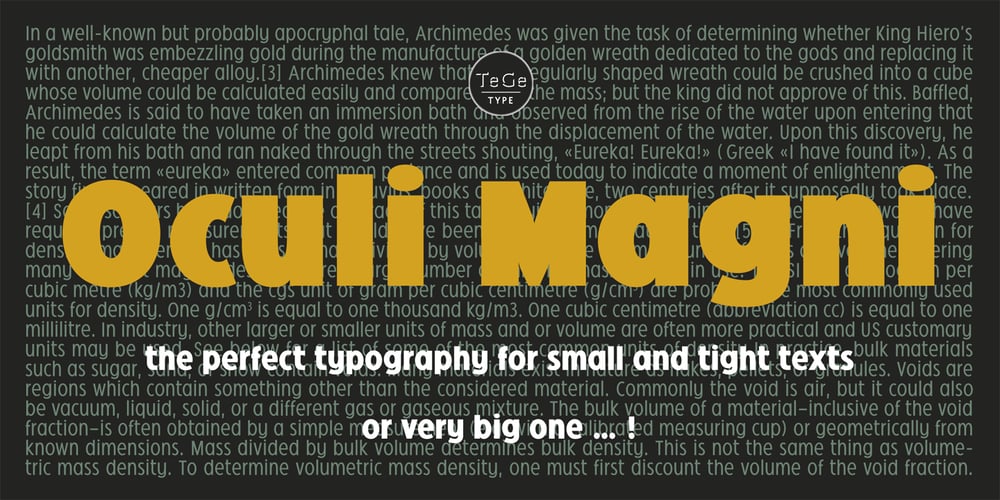
Oculi Magni Font Family was designed by Thierry Gouttenègre and published by TeGeType. Oculi Magni contains 16 styles and family package options. Oculi Magni is a new sans serif type family of 8 weights with italics. This font was specially designed for the composition of texts in small size as captions or footnotes but the thin and black weights can also be used in display sizes. The x-height, as tall as possible, allows the composition of very tight, very dense texts while maintaining a perfect readability.